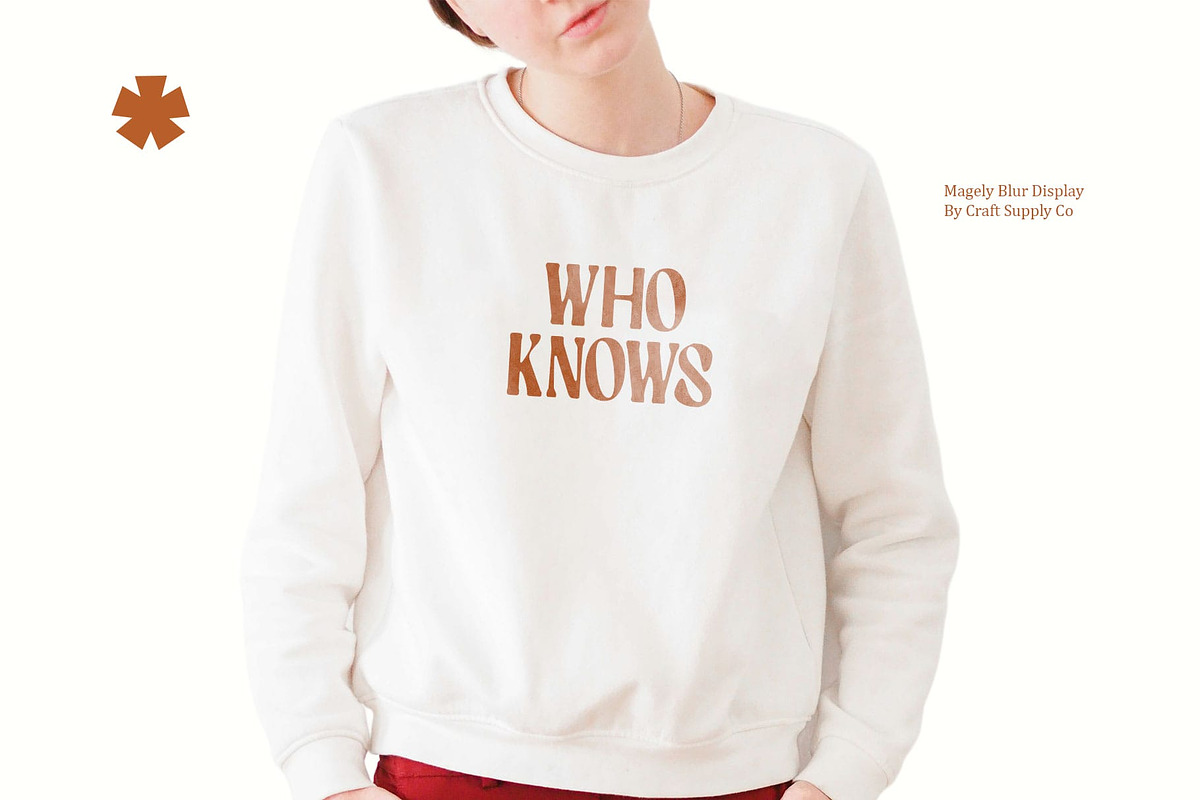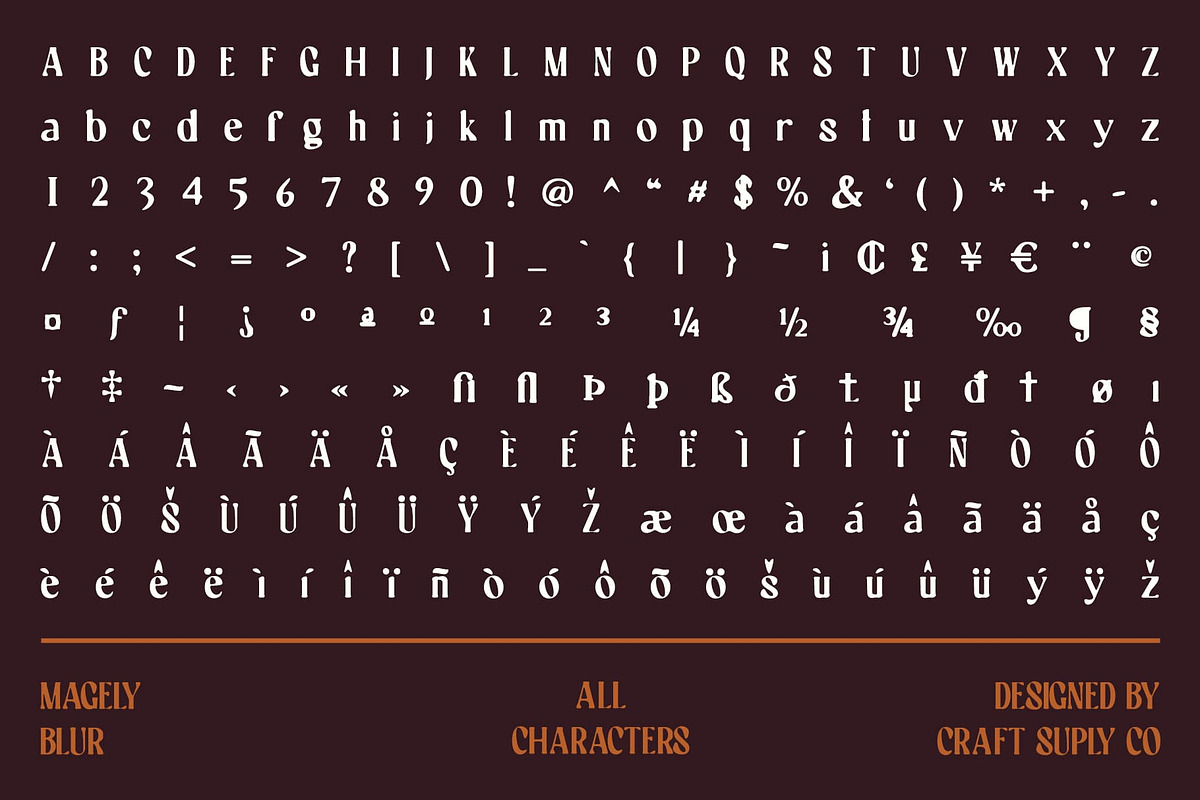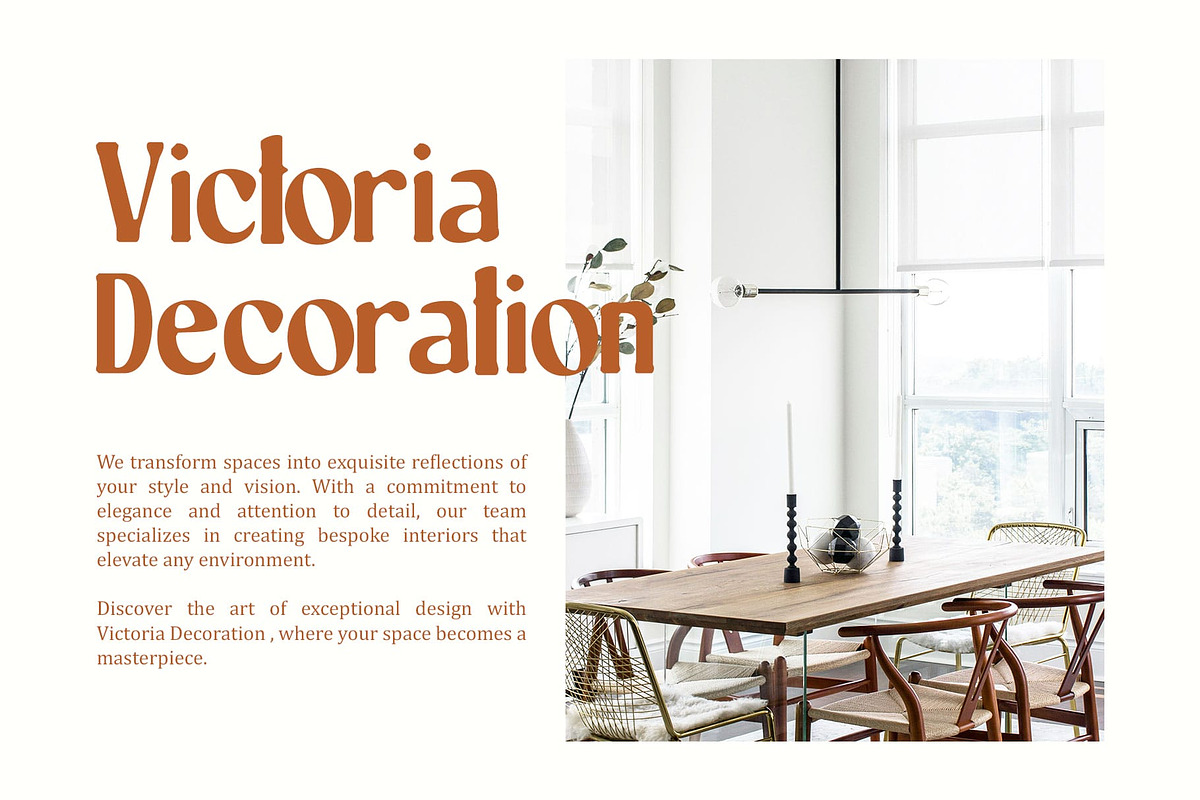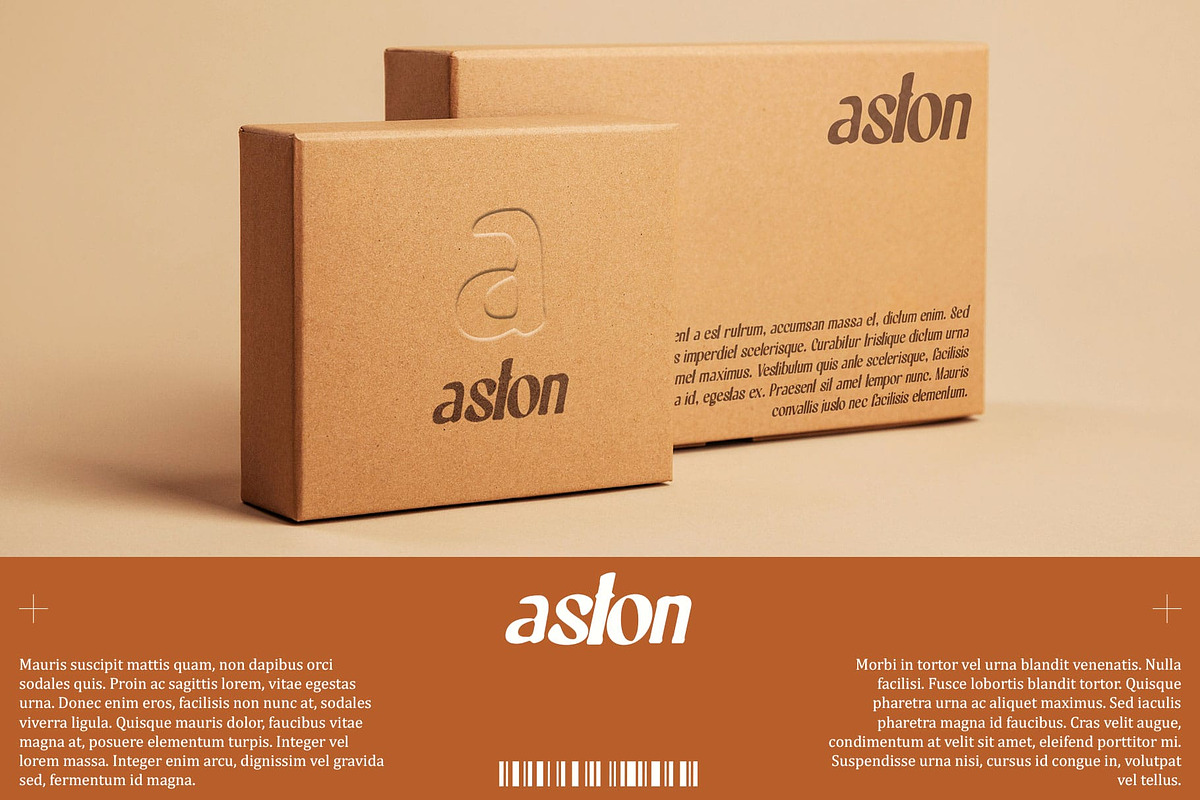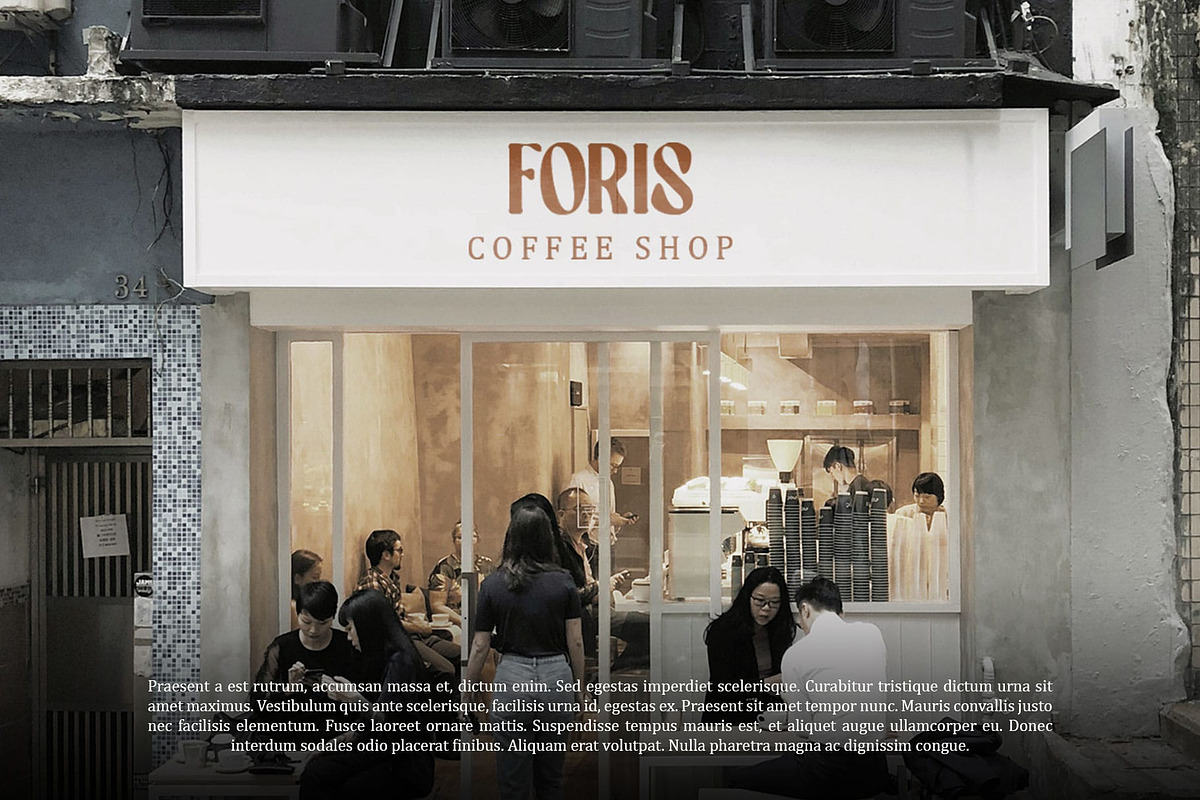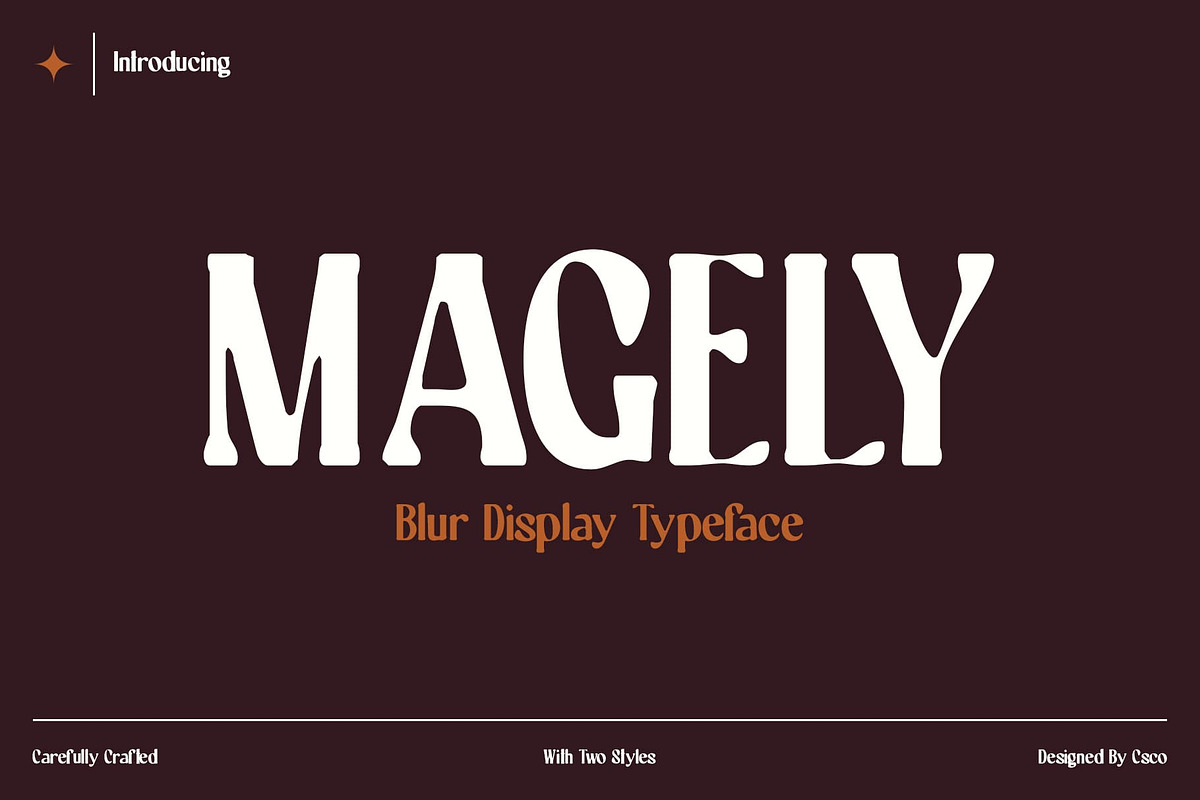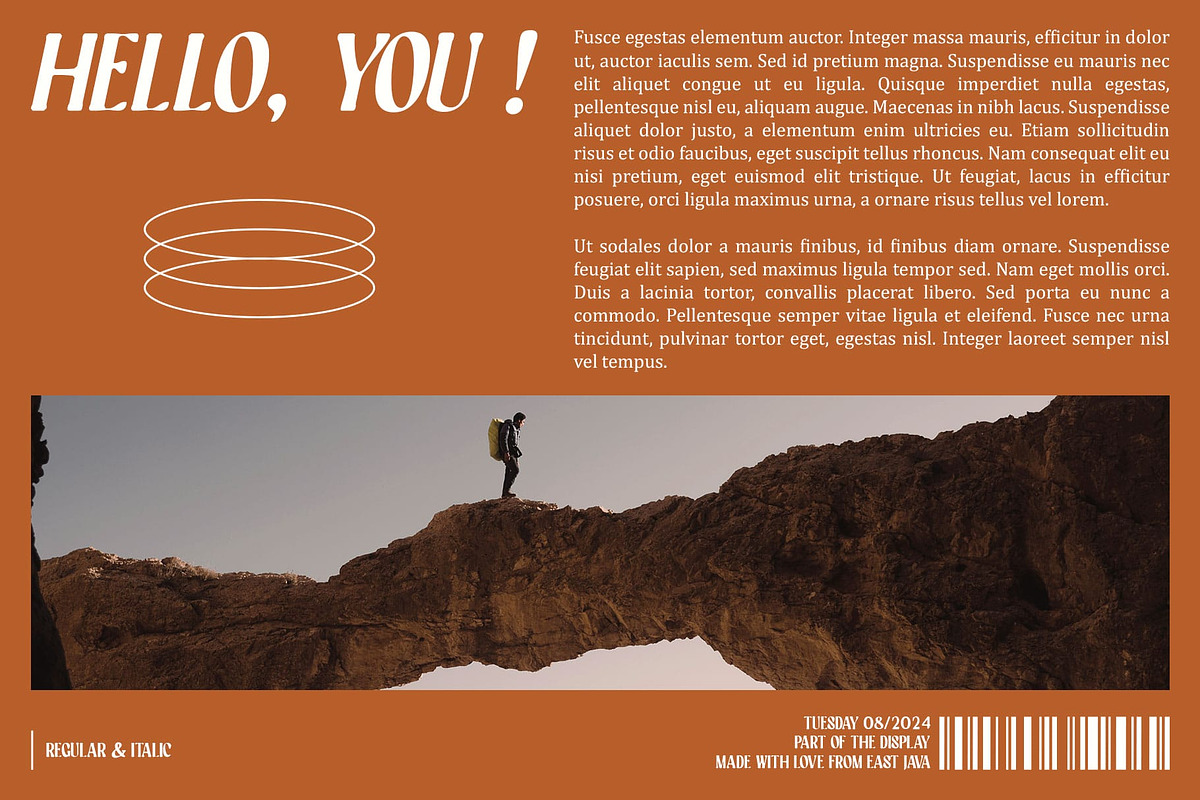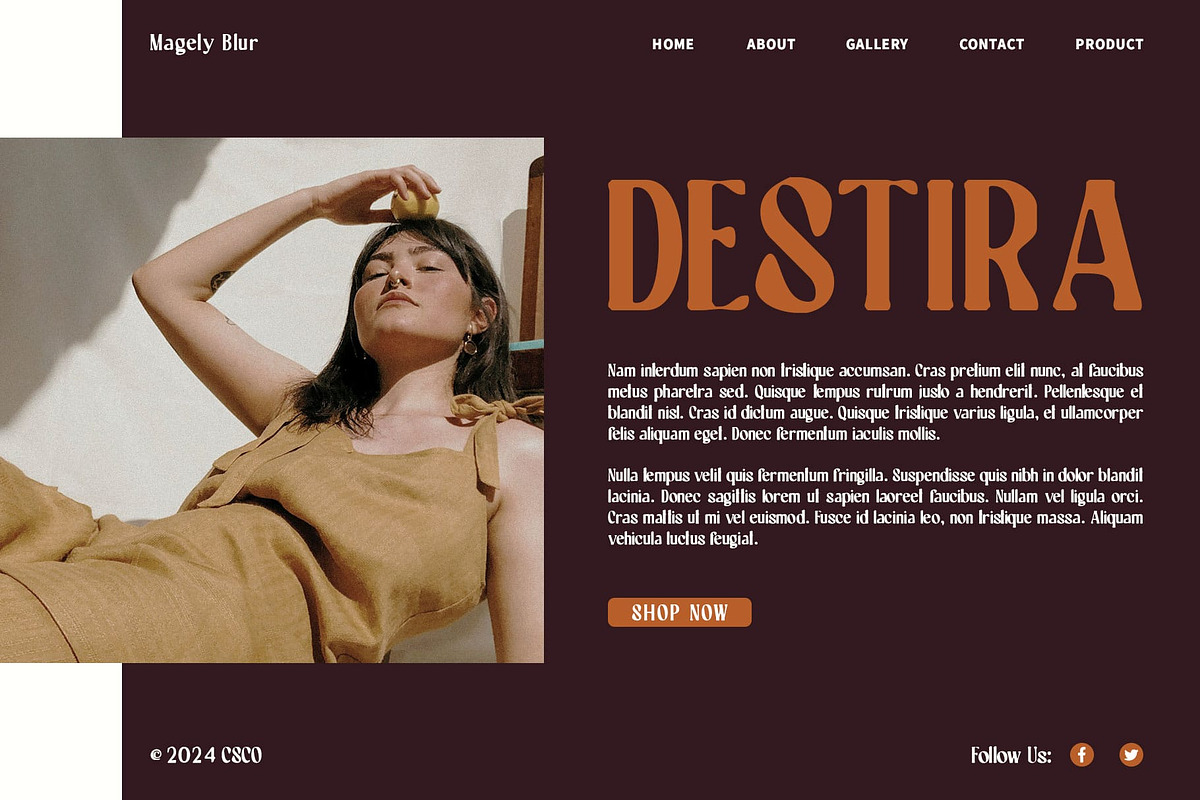
Magely Blur
Magely Blur Font: Classic Serif Font with Timeless Elegance and Retro Flair
Timeless Elegance with Retro Charm Magely Blur seamlessly combines classic serif elegance with a touch of retro charm. Its refined, traditional letterforms bring a sense of sophistication to any design, while the retro-inspired blur effect introduces a nostalgic twist. This unique blend of timeless elegance and vintage appeal makes Magely Blur an excellent choice for designs that aim to evoke a classic yet stylish atmosphere.
Subtle Blur Effect for Added Sophistication The subtle blur effect in Magely Blur adds a layer of sophistication and depth to the classic serif design. This gentle effect enhances the overall aesthetic by softening the edges and creating a nostalgic, almost dreamy quality. The result is a font that exudes a graceful, stylish appearance, perfect for adding a refined touch to any project.
Versatile for Stylish and Graceful Projects With its blend of traditional serif elements and a retro blur effect, Magely Blur offers versatility for various design applications. It is perfect for creating designs that require a touch of vintage elegance, from high-end branding to elegant event invitations. The font’s timeless appeal and sophisticated look make it a standout choice for projects aiming to capture both classic and contemporary styles.
- Magely Blur Regular
- Magely Blur Italic